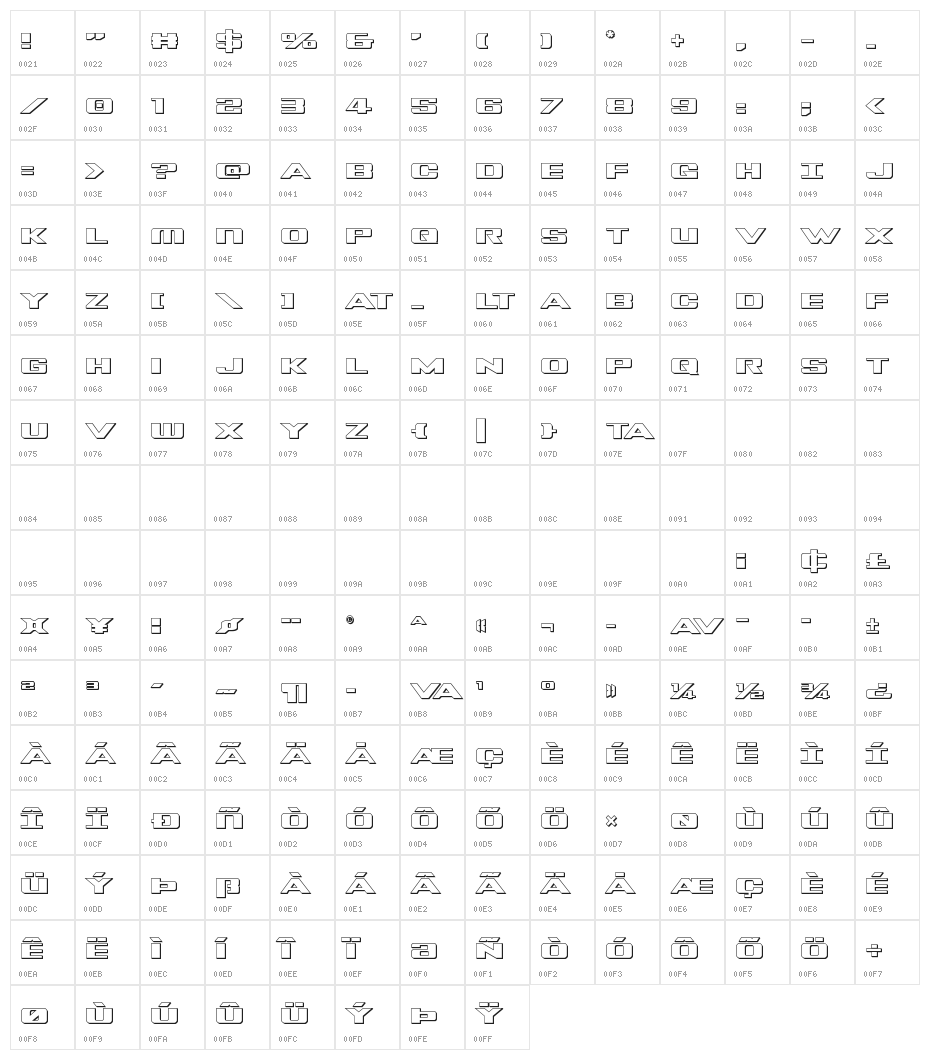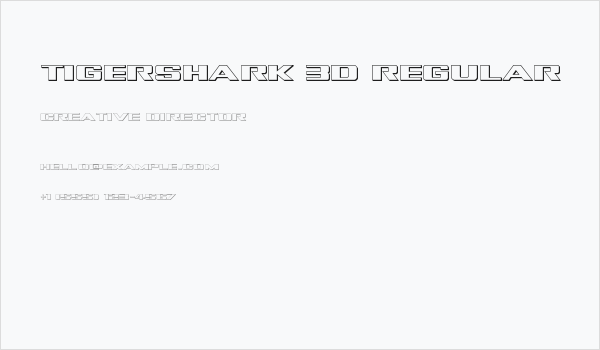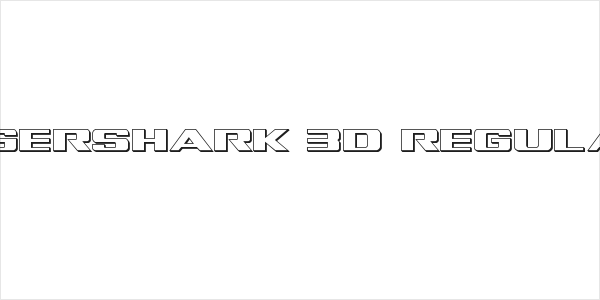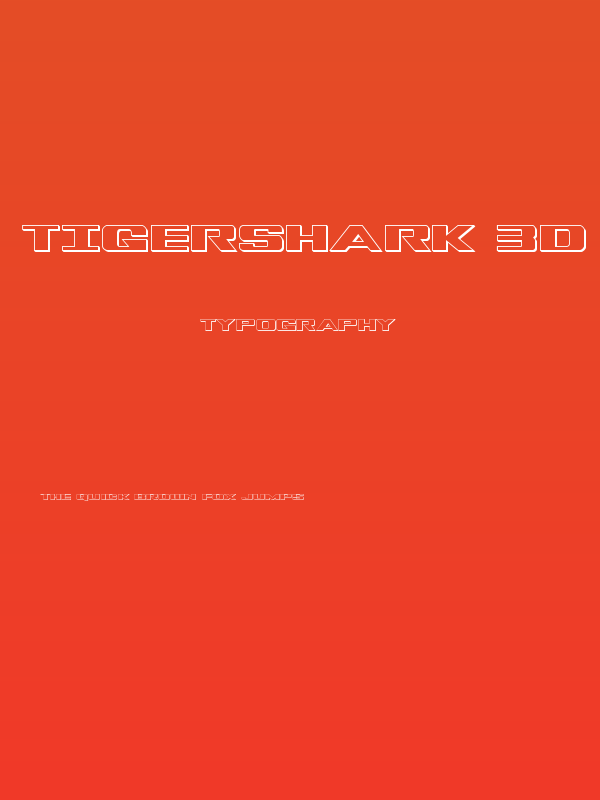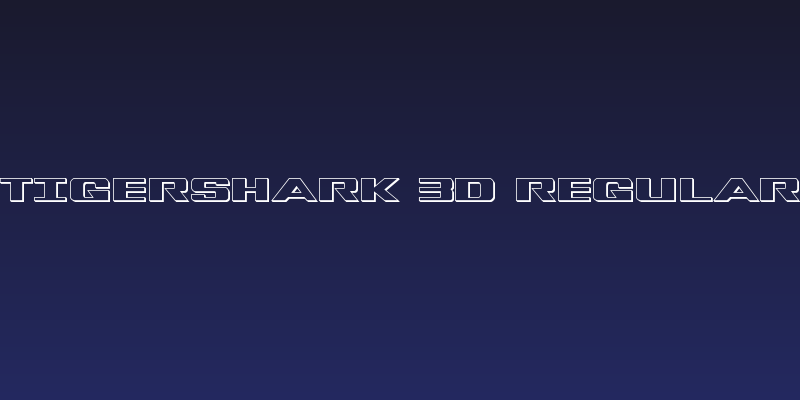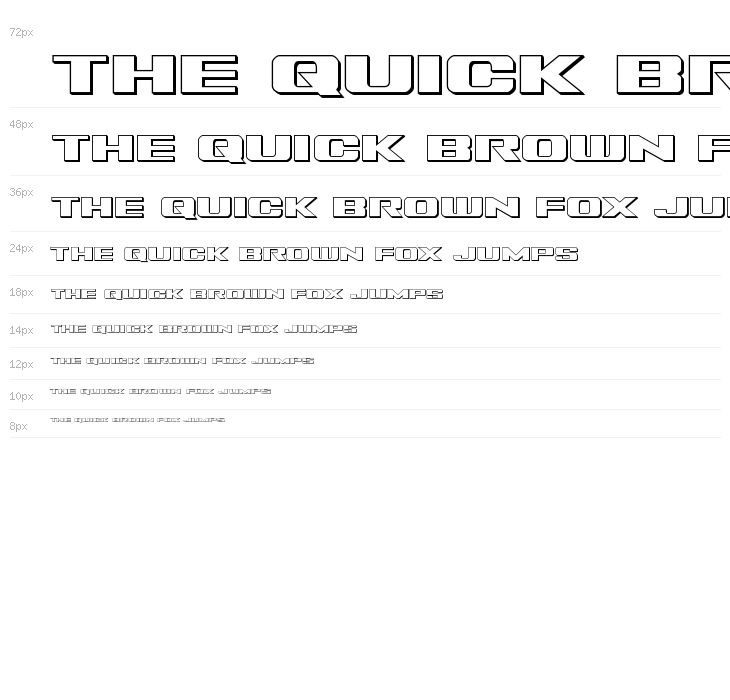
Tigershark 3D Regular Font
Tigershark 3D Regular Description
This font features a bold, three-dimensional appearance with a strong geometric structure. The characters are outlined, giving them a hollow look that enhances the 3D effect. The design is angular and sharp, with a futuristic and industrial feel. Each letter and number is distinct, with consistent line thickness that maintains readability while adding a unique visual impact. The special characters follow the same design principles, ensuring a cohesive look across all glyphs.
| Proposed Projects | Ideal for projects requiring a modern and industrial aesthetic, such as technology branding, video game titles, or sci-fi themed posters. |